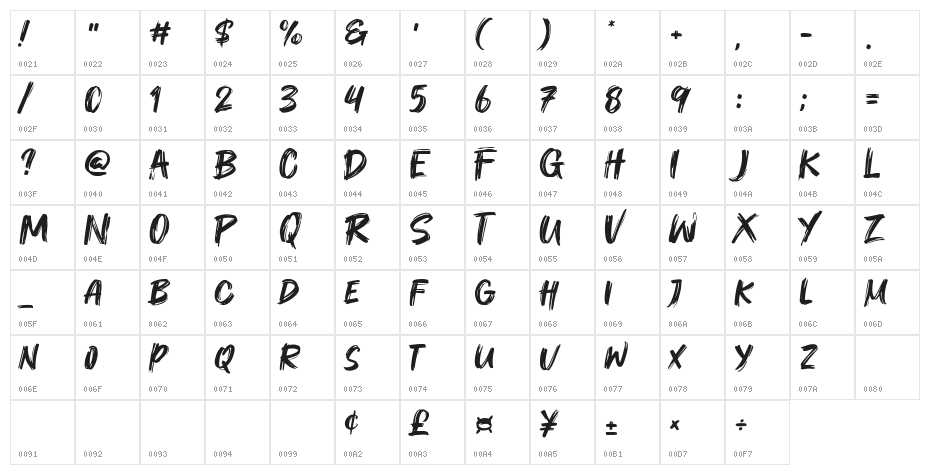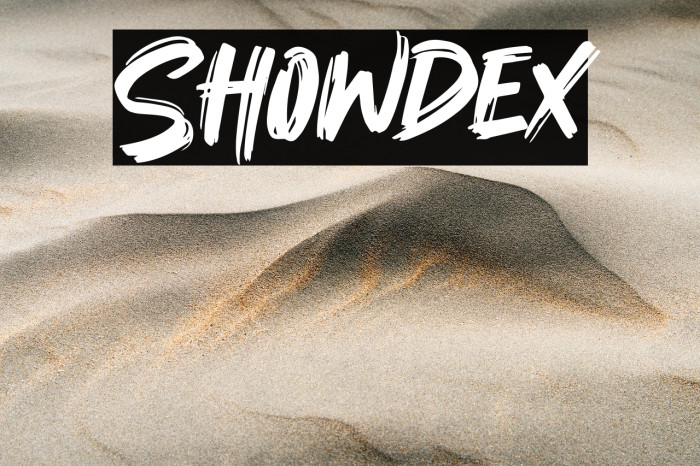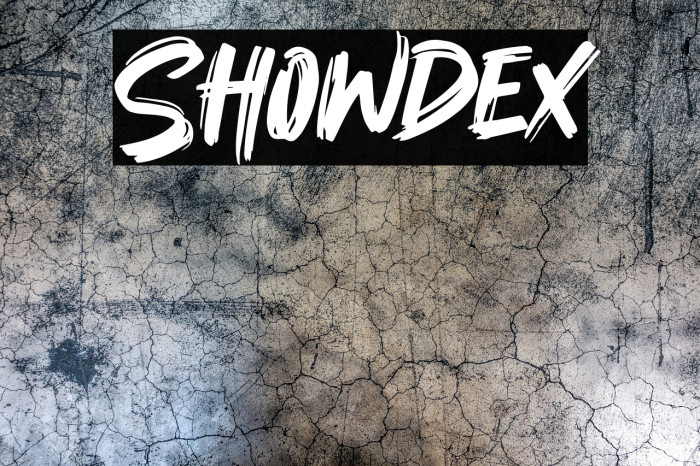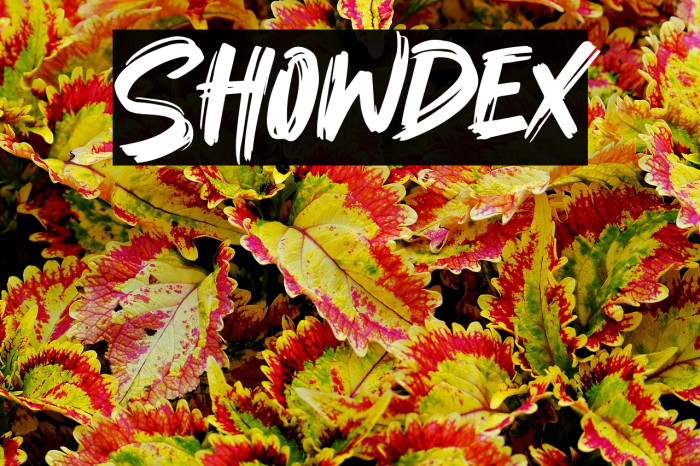
Showdex Font
Showdex Description
This font exudes a bold and energetic vibe, characterized by its brush-like strokes that give it a dynamic and expressive appearance. The letters are crafted with a sense of movement, as if painted with a swift, confident hand. The uppercase and lowercase letters maintain a consistent style, with each character displaying a unique flair. The numbers and special characters follow the same artistic approach, ensuring uniformity across the font. Its rough edges and varying stroke thicknesses contribute to a raw, artistic feel, making it ideal for projects that require a touch of creativity and spontaneity.
| Overall Style | Modern, Artistic |
| Proposed Projects | Ideal for posters, album covers, branding, and any creative projects requiring a bold statement. |